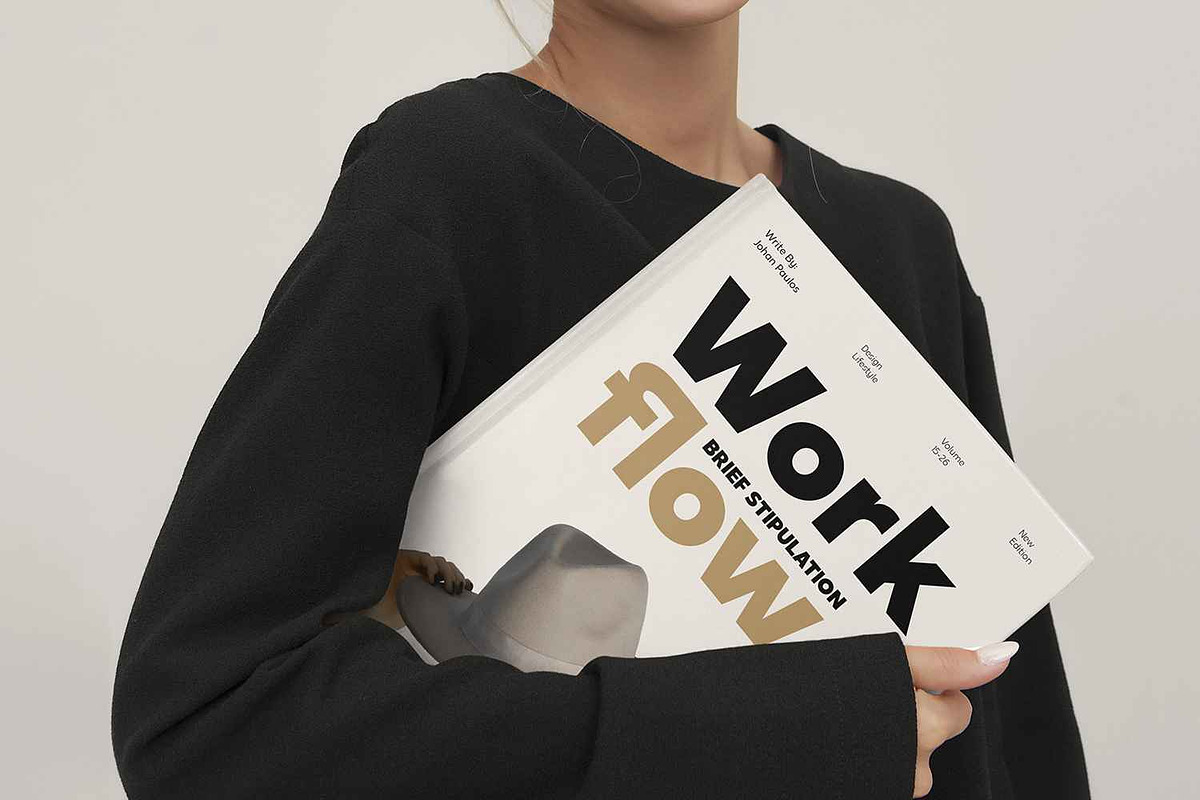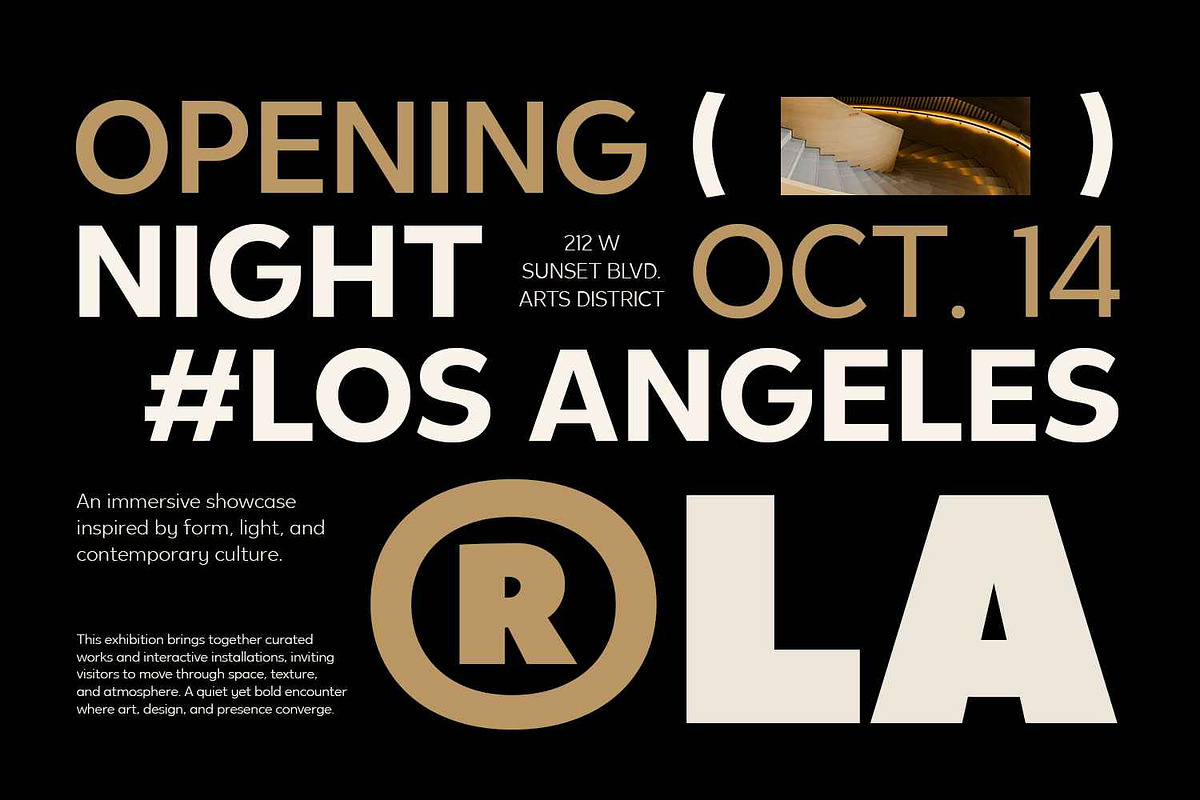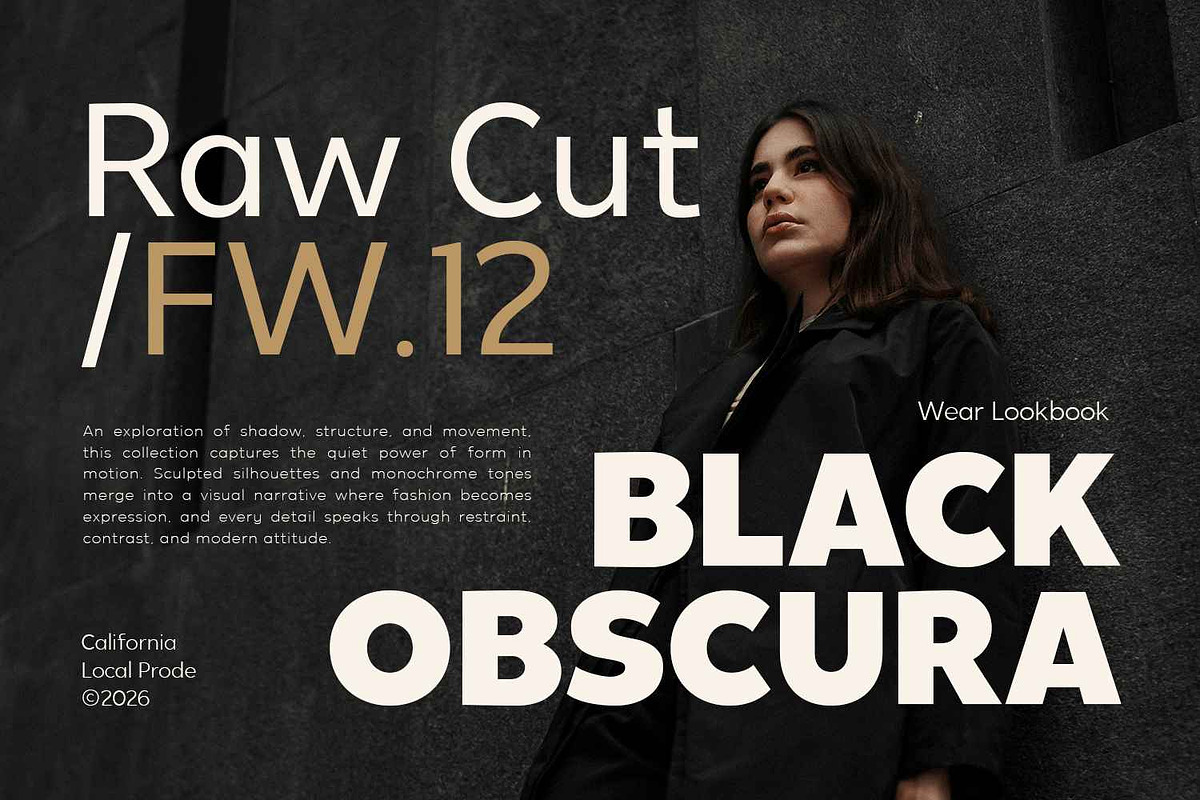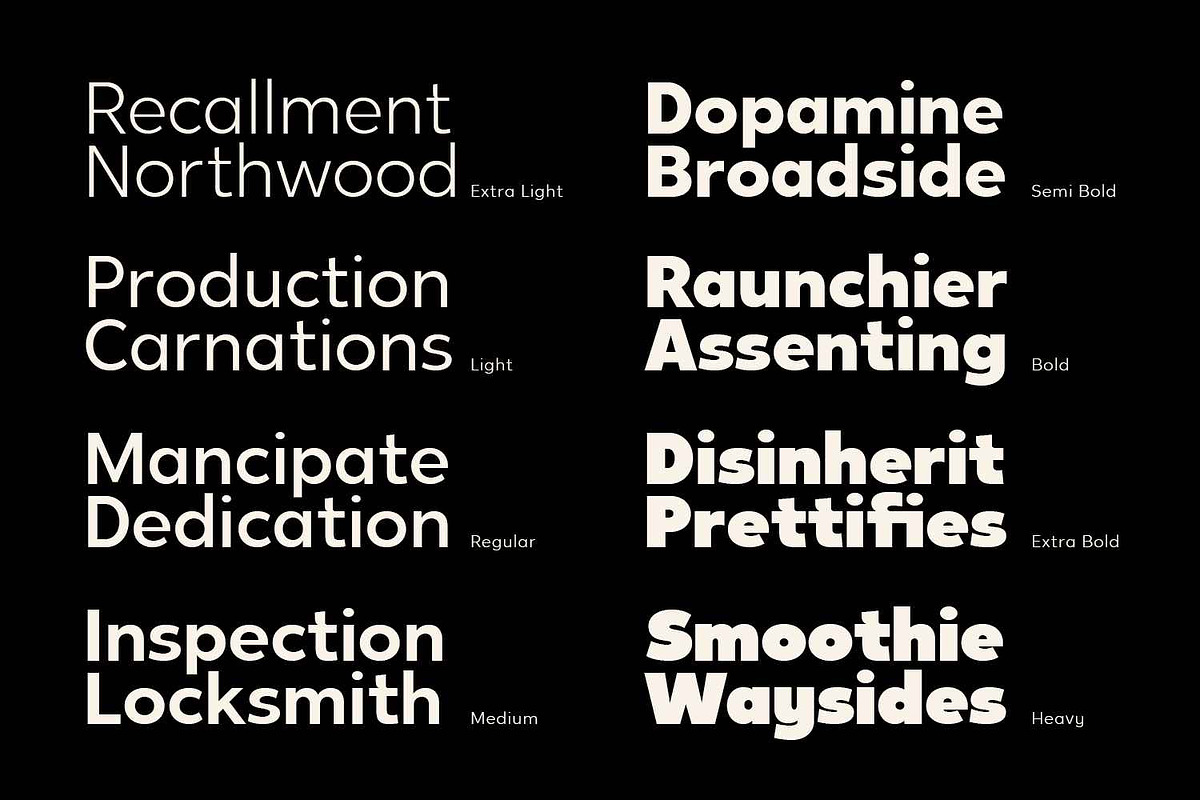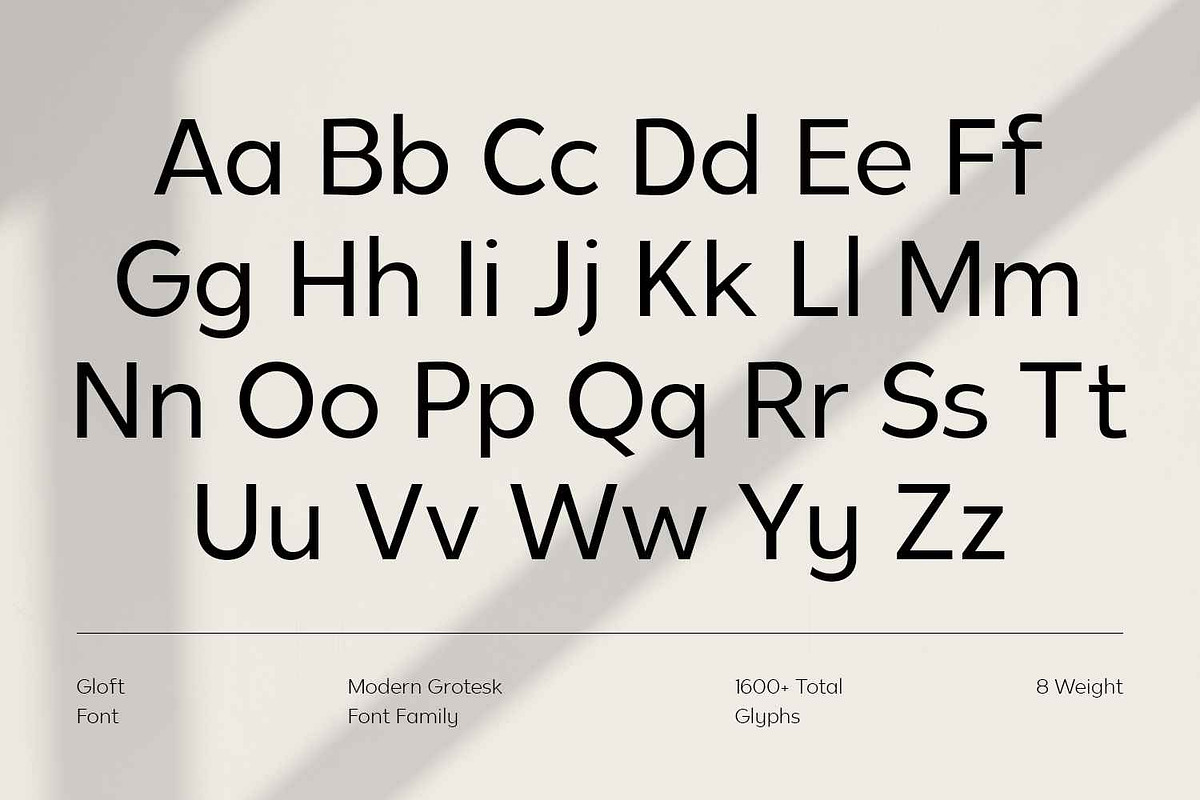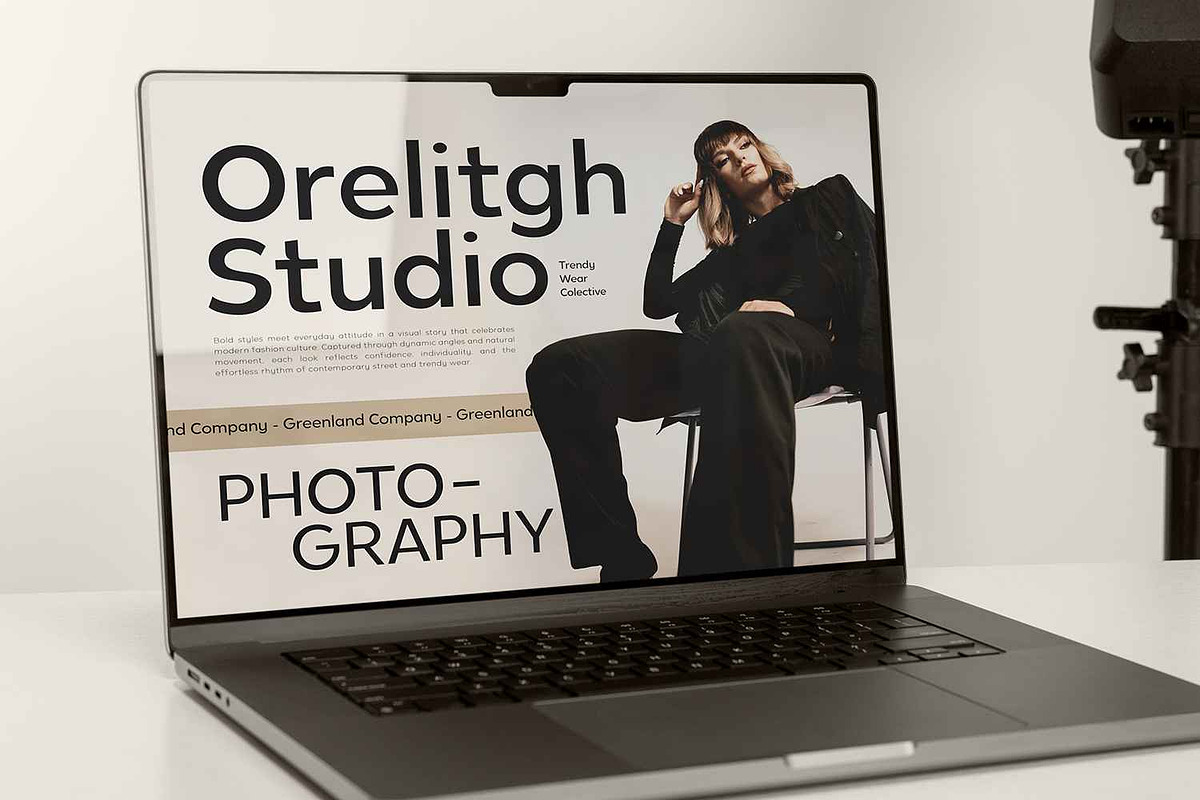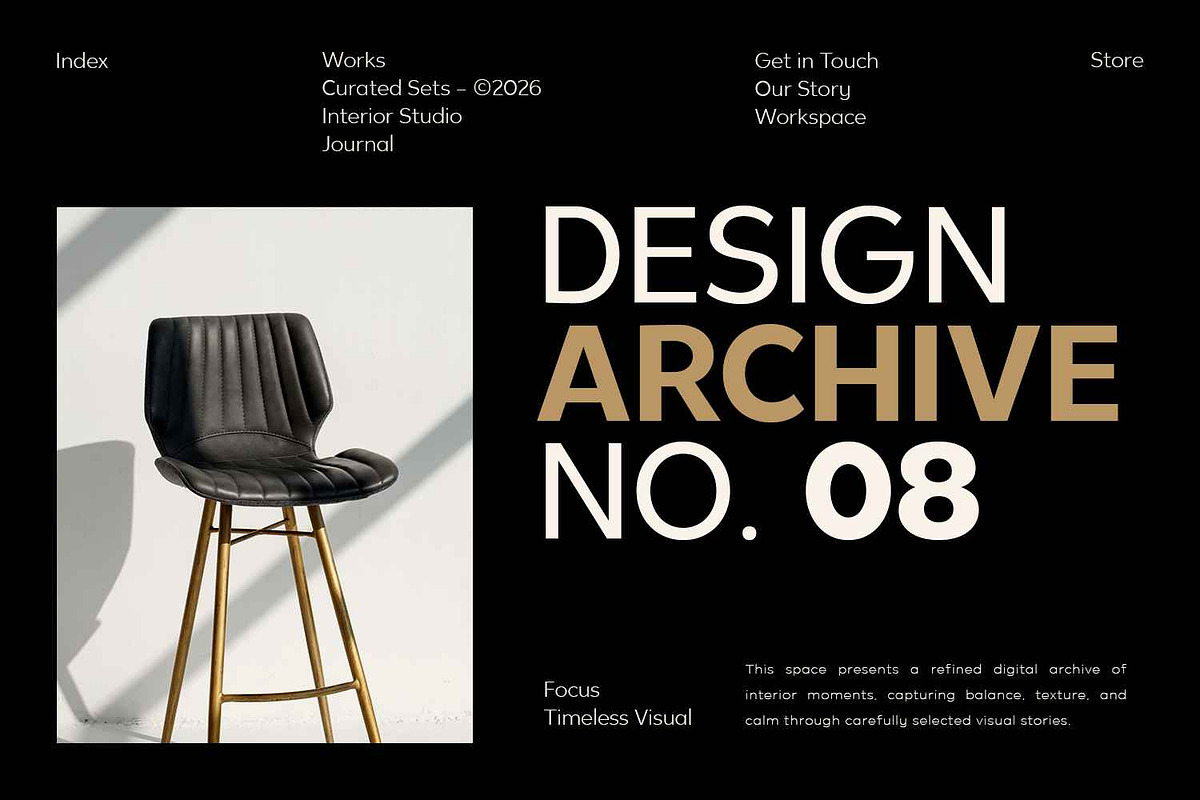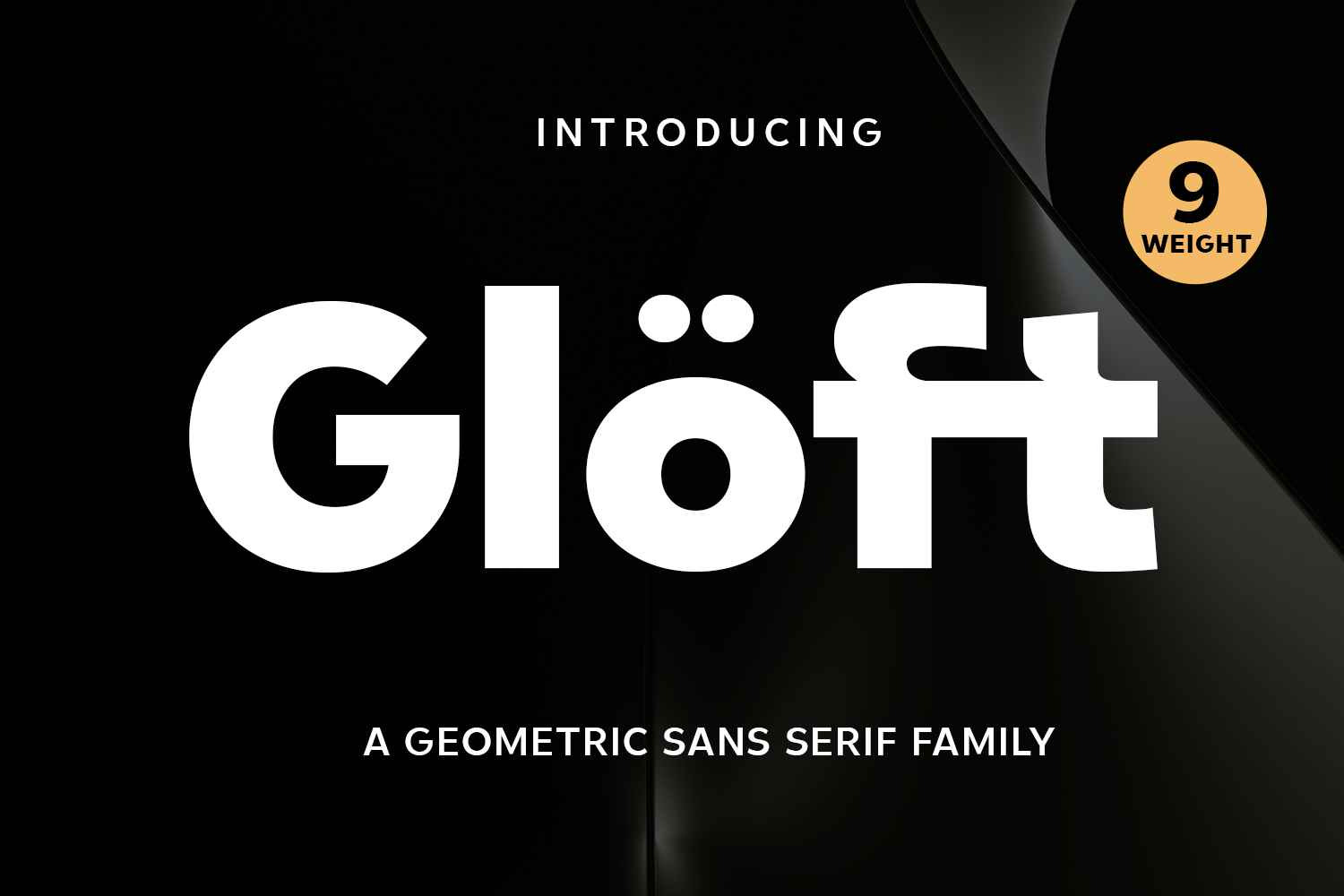
Gloft - Geometric Font Family
Gloft – Geometric Sans Serif Font Family represents a modern typographic approach built on precision, balance, and versatility. Designed to meet the demands of contemporary visual communication, Gloft delivers a clean and confident appearance that feels both professional and timeless. Its geometric structure creates a strong foundation for designs that require clarity and impact.
This font family comes with nine carefully crafted weights, allowing designers to adapt seamlessly across a wide range of projects. From light and minimal layouts to bold and commanding headlines, Gloft provides flexibility without losing consistency. Each weight is harmonized to maintain visual balance, making it easy to build strong typographic hierarchies.
Gloft’s clean lines and proportional letterforms enhance readability, ensuring that messages are delivered clearly across both print and digital platforms. It performs exceptionally well in branding, editorial design, UI/UX, and corporate materials, where legibility and precision are essential. The geometry feels refined, not rigid, giving designs a polished and approachable tone.
The italic styles introduce a subtle sense of motion and expression while preserving the font’s geometric integrity. These italics add emphasis and contrast without distracting from the overall structure, making them perfect for highlights, quotes, or secondary text within complex layouts.
Whether used for logos, editorial spreads, web interfaces, or marketing materials, Gloft empowers designers to create cohesive, modern, and impactful visual identities. Elevate your projects with confident geometry and refined simplicity—download Gloft today and start designing with purpose.